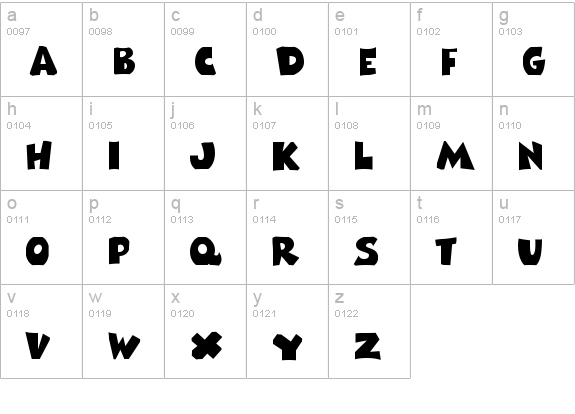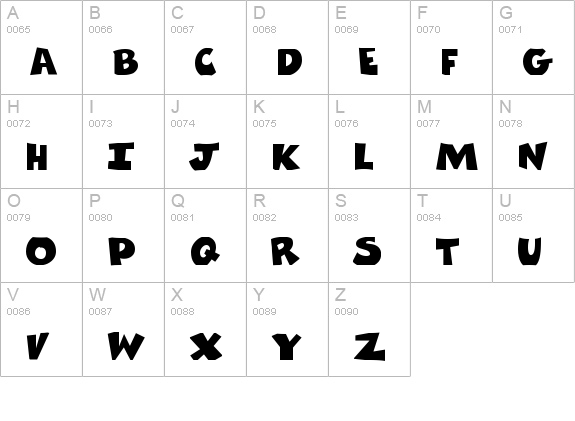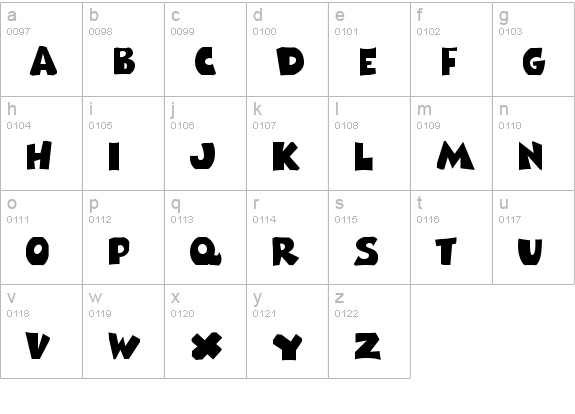
Comix Heavy ICG is a heavy, high-impact variant in the Comix typeface family \xE2\x80\x94 well suited to high-impact headlines, posters, and display advertising.
Comix Heavy ICG font is a bold and dynamic typeface that exudes a strong and impactful presence. With its thick and exaggerated letterforms, this font is perfect for making a statement in headlines, titles, and other prominent design elements. The sharp edges and distinctive style of Comix Heavy ICG give it a modern and edgy look that is sure to capture attention.